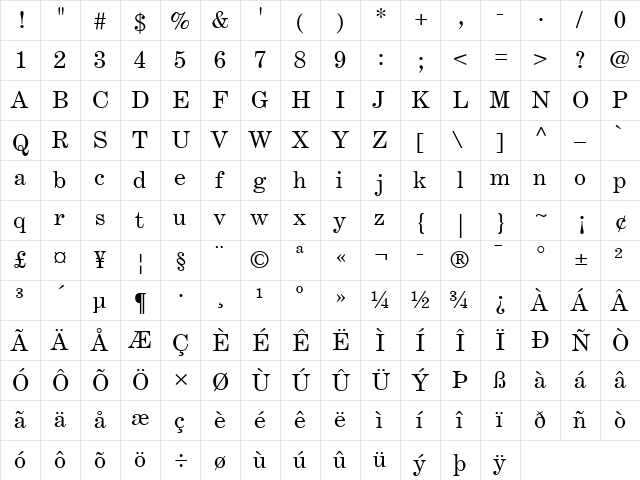
CenturyExpanded LT Regular Font Preview
CenturyExpanded LT Regular
Design Context for CenturyExpanded LT Typeface
CenturyExpanded LT is a composed and adaptable typeface that performs quietly and consistently across a wide range of design contexts. Its slender proportions lend an understated elegance to any composition.